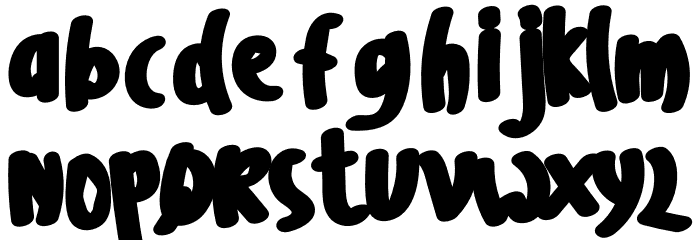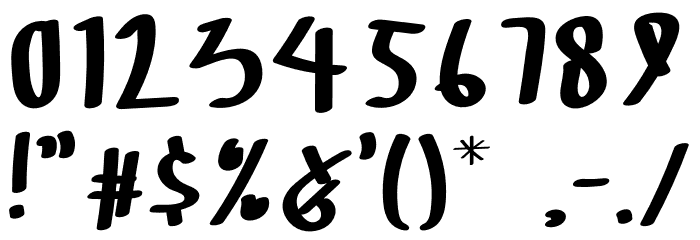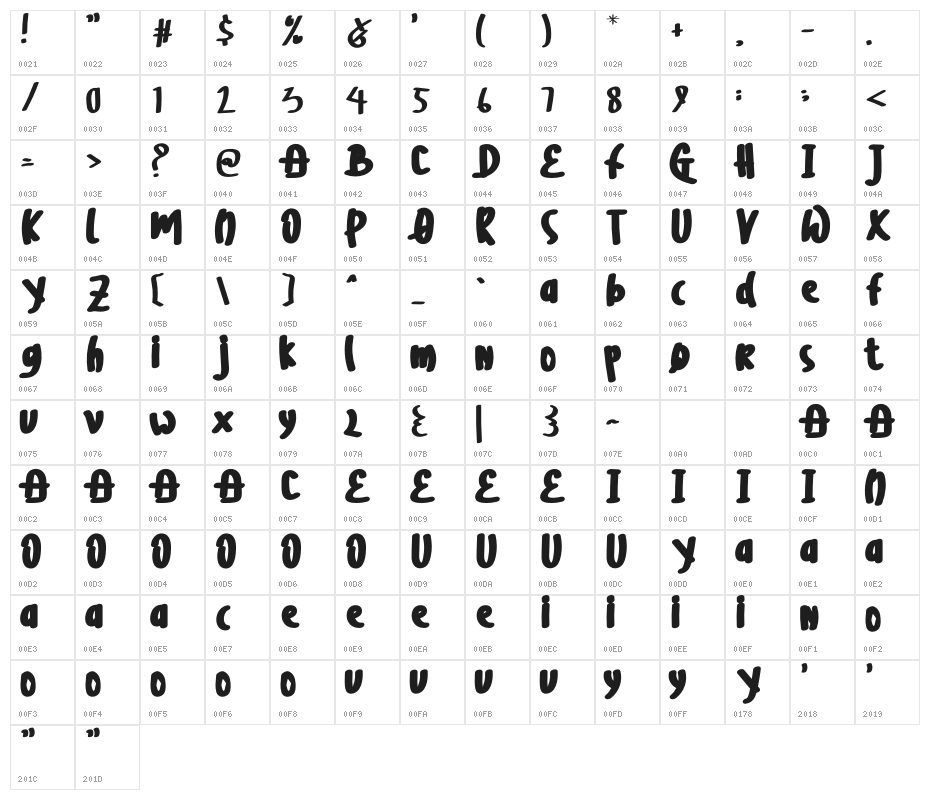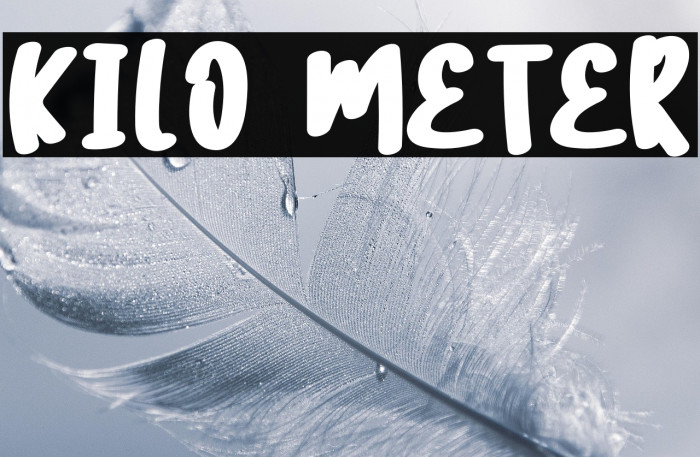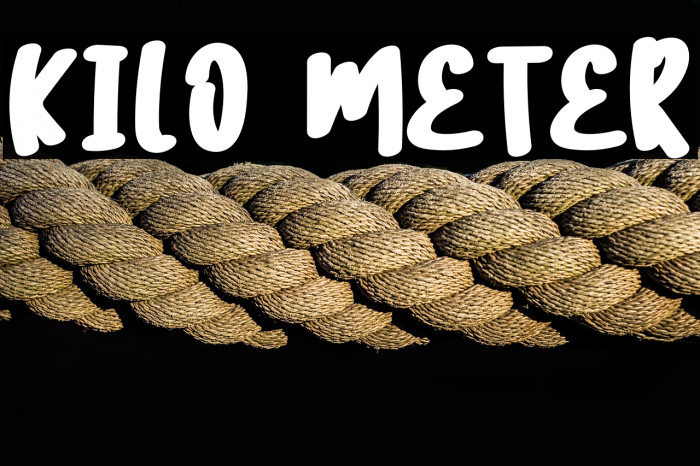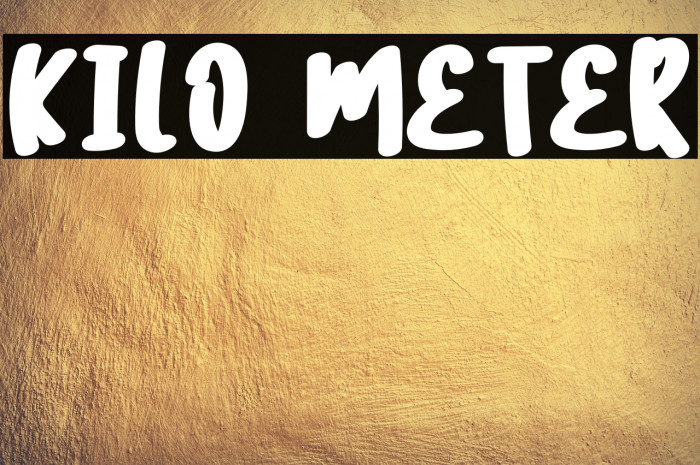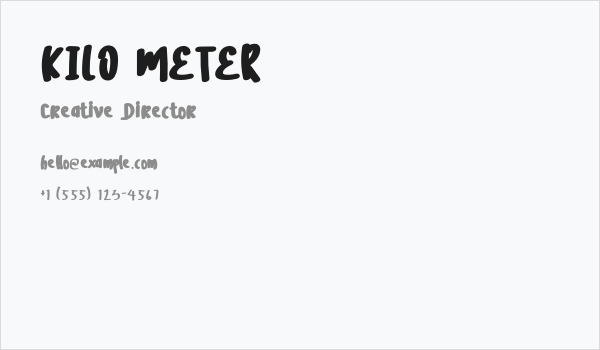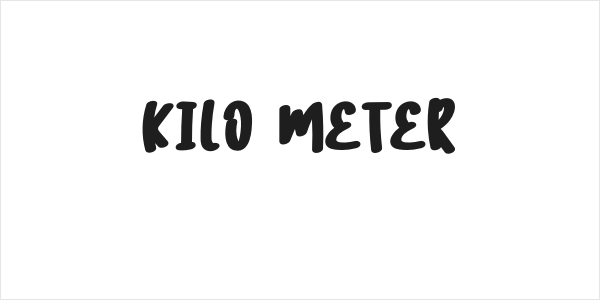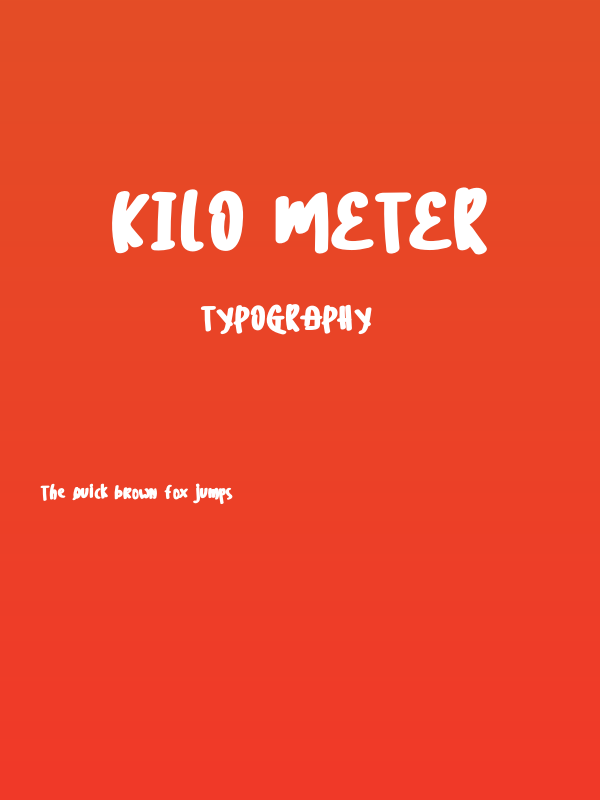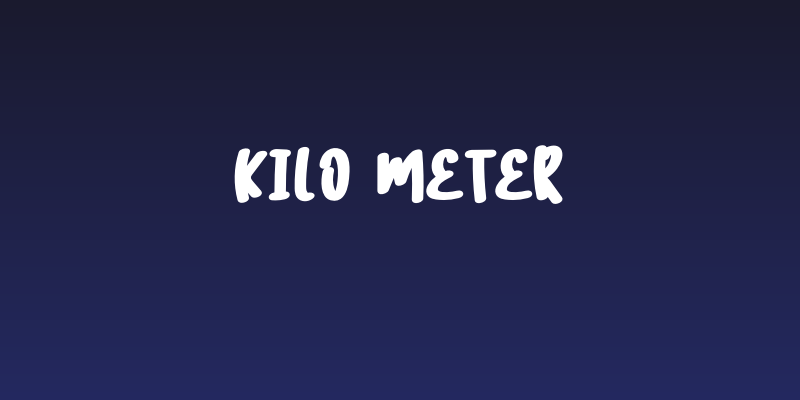
KILO METER Font
This font features a bold, playful style with a handwritten appearance. The characters are thick and rounded, giving a sense of warmth and approachability. The uppercase and lowercase letters maintain a consistent flow, while the numbers and special characters complement the overall design. The strokes are uniform in width, contributing to a cohesive look. This font is ideal for projects that require a friendly and informal touch, such as children's books, casual branding, or creative posters.
A bold, playful handwritten font with rounded characters.
- Proposed Projects: Children's books, casual branding, creative posters, greeting cards.
- Overall Style: Playful, Informal